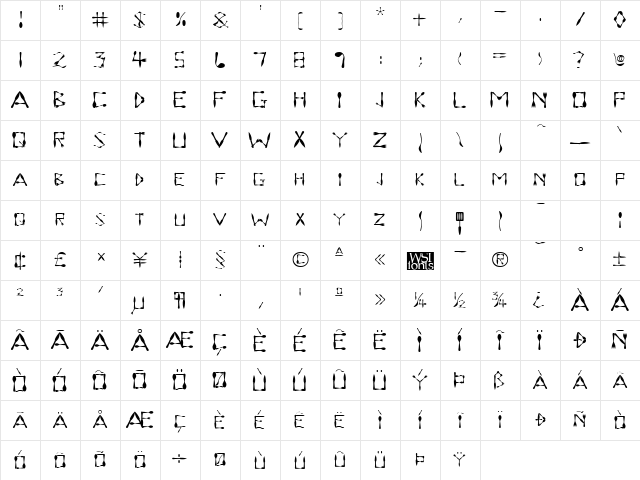
DinnerTime Regular Free Font
DinnerTime Regular
Design Context for DinnerTime
DinnerTime is a composed and adaptable typeface that performs quietly and consistently across a wide range of design contexts.